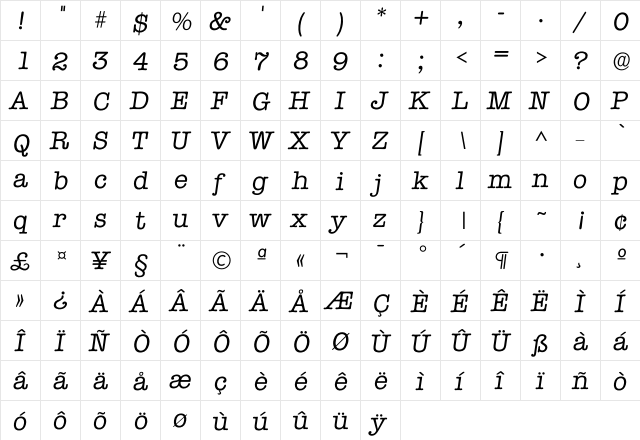
Itypewriter Regular
Design Context for Itypewriter Typeface
Itypewriter uses fixed-width spacing throughout, giving it the structured, systematic character associated with coding environments and technical documentation.
Well-suited to data-driven dashboards, coding tutorials, and any design that wants to reference the world of programming.
Pro Tip: Use Itypewriter with slightly increased line-height for extended reading — fixed-width spacing can feel dense in longer passages without extra breathing room.